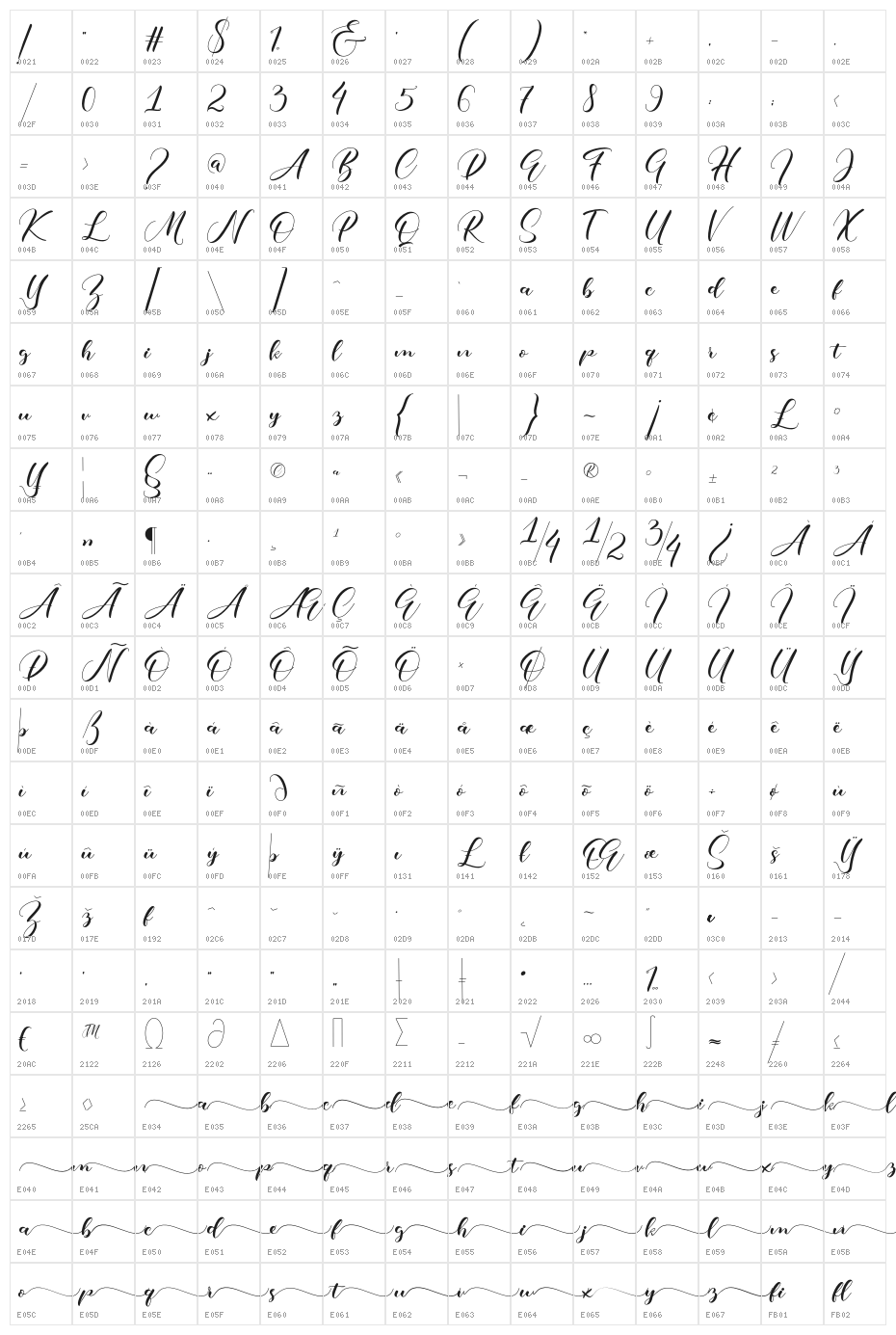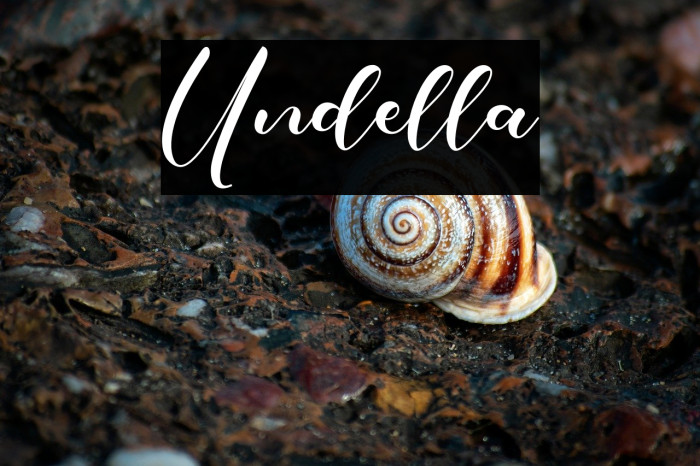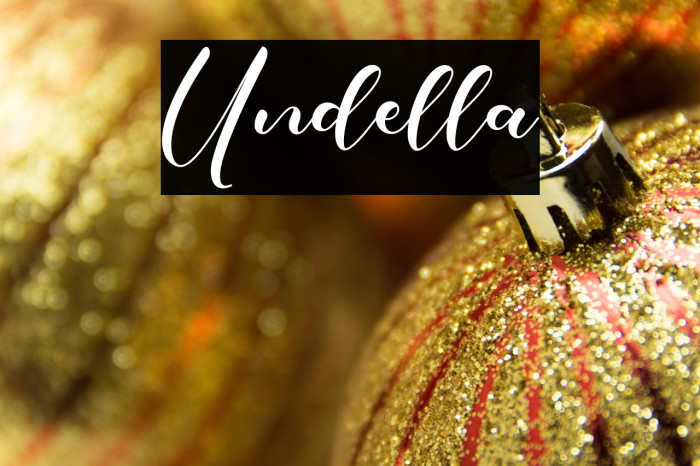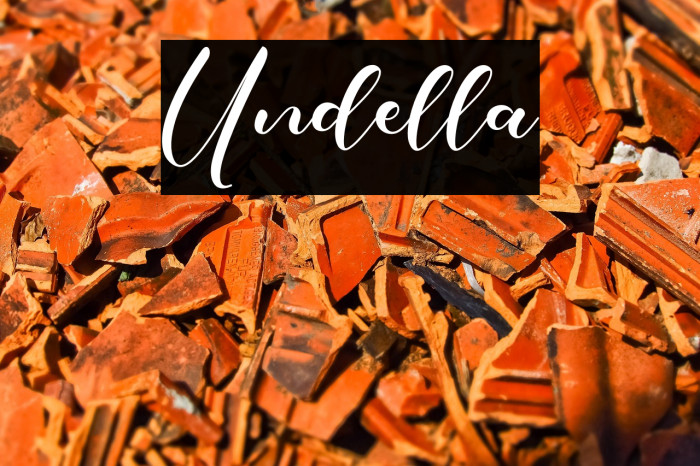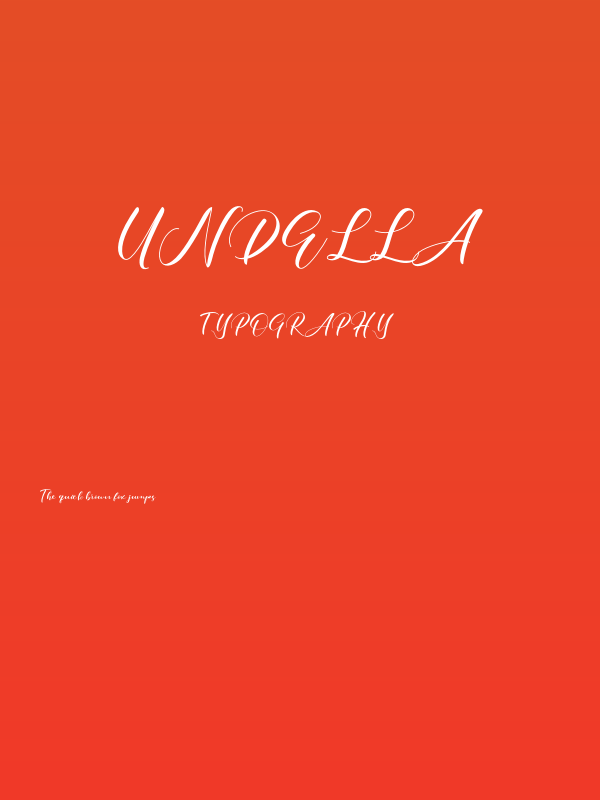
Undella Font
Undella Description
This elegant script font features fluid, cursive strokes that convey a sense of sophistication and grace. The uppercase letters are characterized by sweeping loops and flourishes, while the lowercase letters maintain a consistent flow with gentle curves. The numerals are stylishly designed, complementing the overall aesthetic with their own unique flair. Special characters are thoughtfully integrated, enhancing the font's versatility. The font's high contrast between thick and thin strokes adds to its dramatic appeal, making it suitable for a variety of creative applications.
| Overall Style | Elegant |
| Use Case | Logos, Invitations, Branding |
| Proposed Projects | Ideal for wedding invitations, elegant branding, luxury product packaging, and artistic posters. |